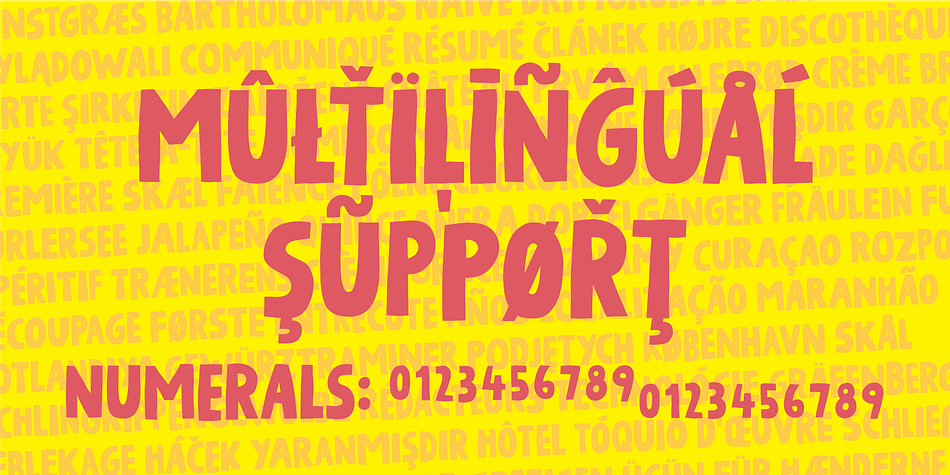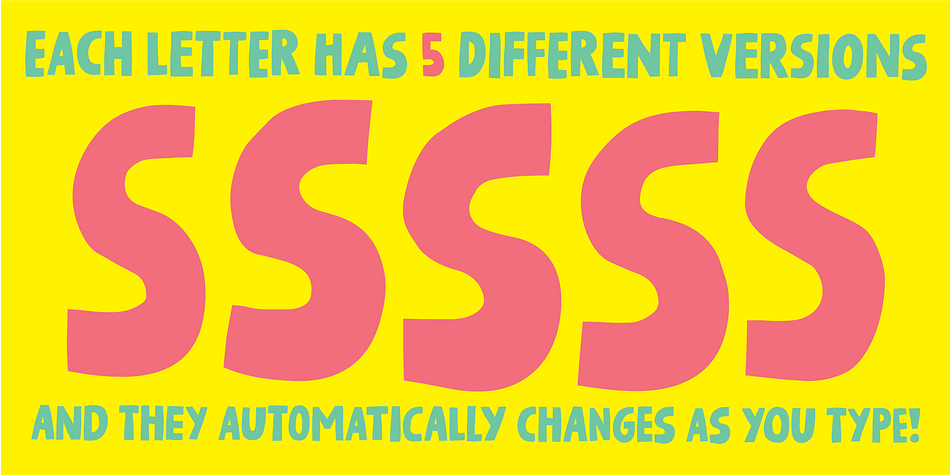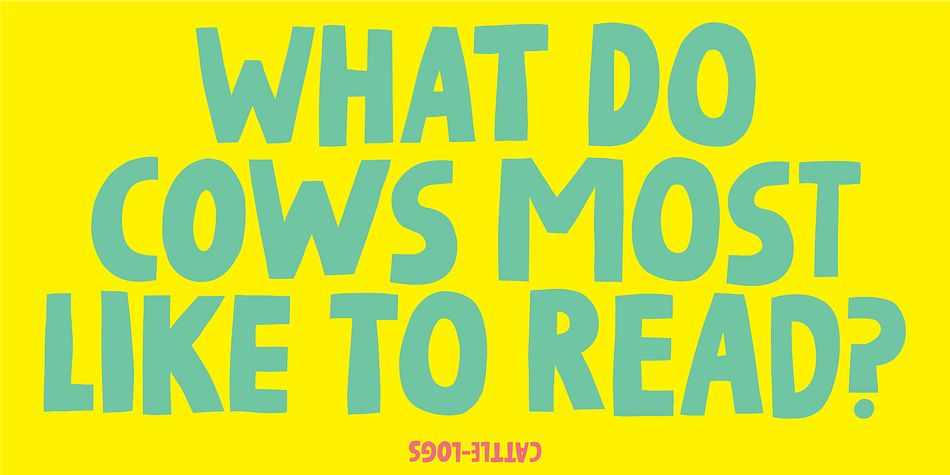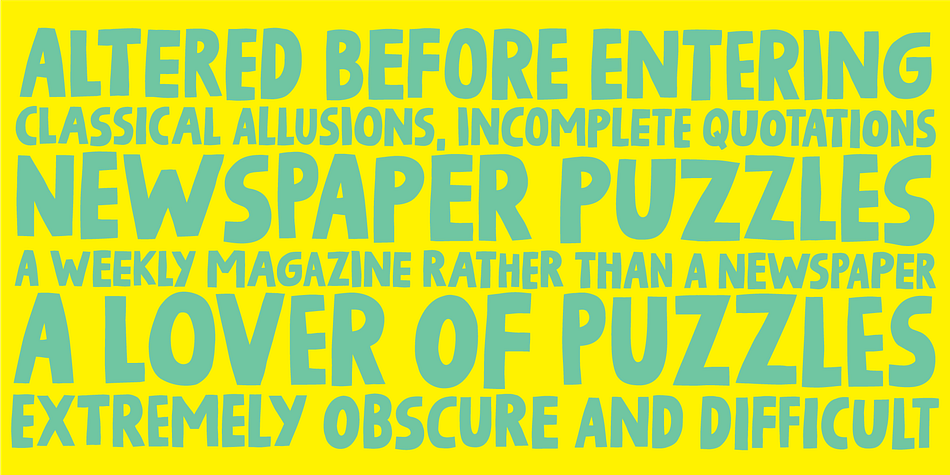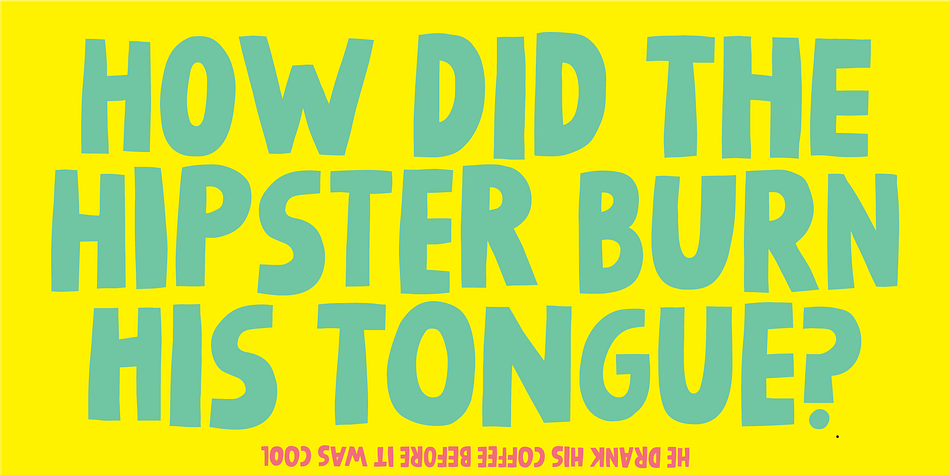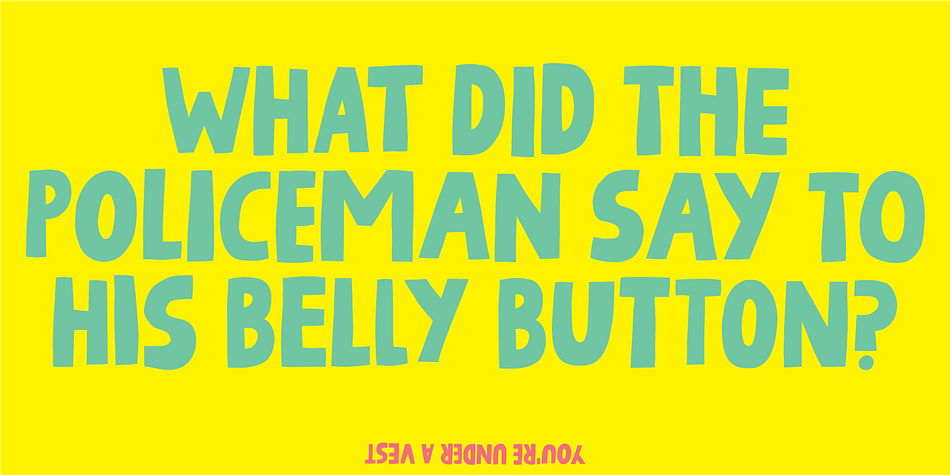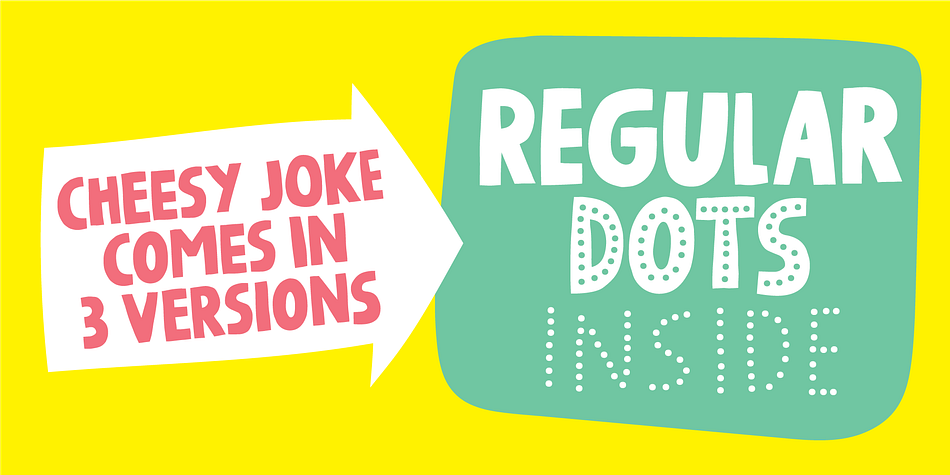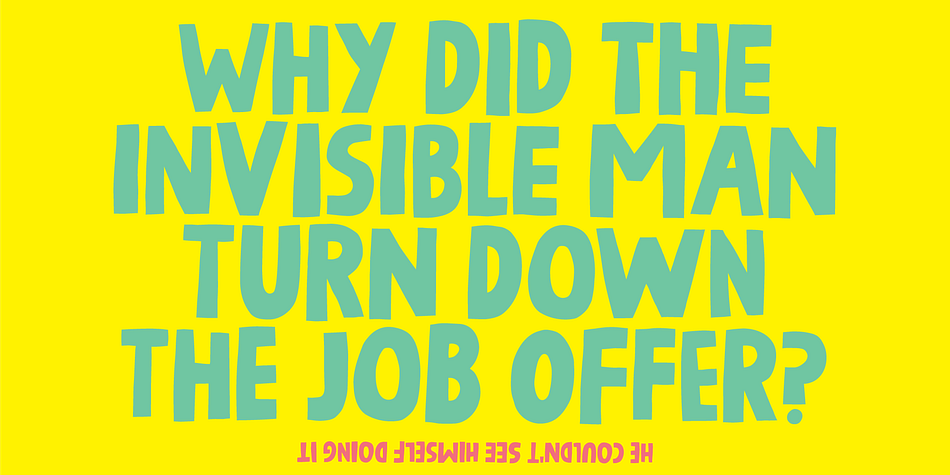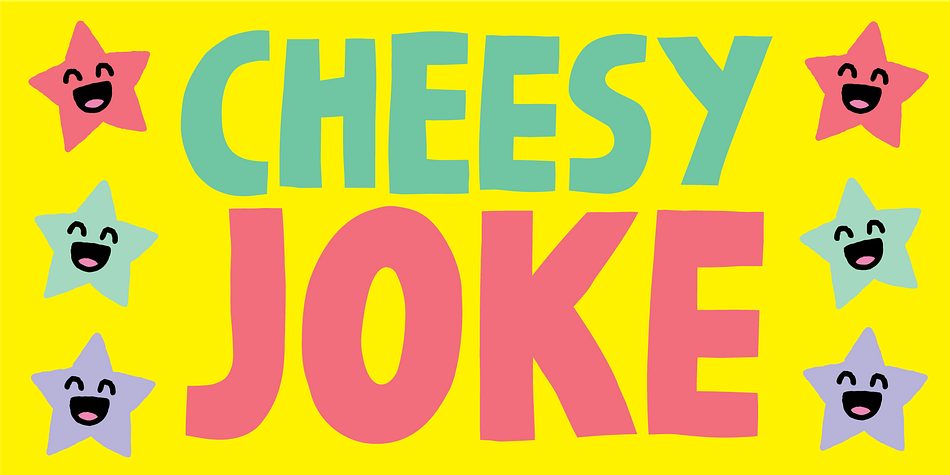
Cheesy Joke
Designed by Jakob Fischer, Cheesy Joke is a hand display font family. This typeface has three styles and was published by Pizzadude.dk.
Turning into a grownup in my mid-fifties, has one clear advantage: Cheesy jokes! Some would call them dad jokes, I call them cheesy jokes, and often I am the only one who thinks the jokes are funny! :)
Anyway, there is nothing cheesy about this font, other than from where the inspiration came from.
It’s a handmade comic font which I edited and cleaned up a bit. Each letter has 5 different versions, and the font comes in 3 versions which plays well together!